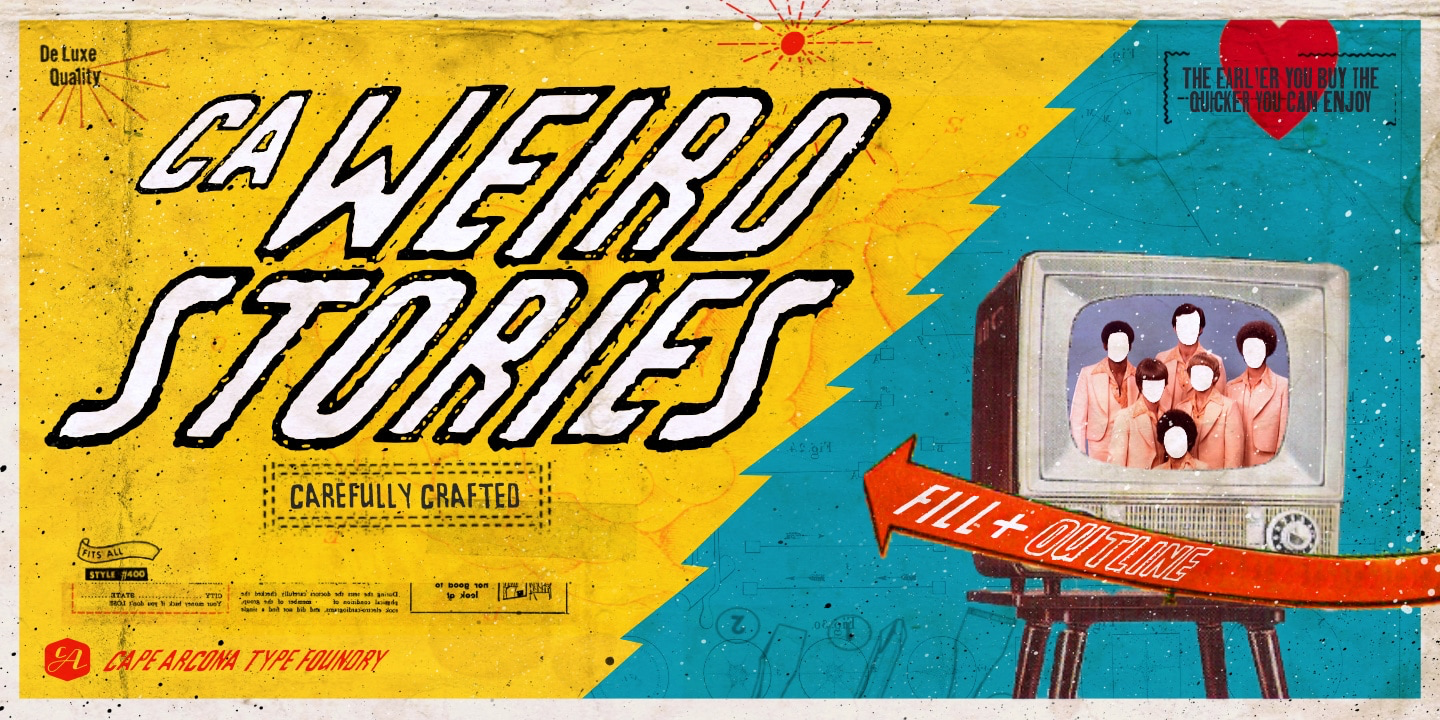
CA Weird Stories Font is perfect for horror novel covers, supernatural thriller designs, paranormal investigation materials, mysterious podcast branding, occult publication layouts, strange phenomena documentaries, eerie entertainment venues, gothic art projects, and any project requiring typography with unsettling narrative atmosphere and mysterious storytelling aesthetics.
What makes CA Weird Stories Font exciting is its narrative mystique that captures the essence of unexplained phenomena and supernatural storytelling with letterforms that seem to whisper tales of the unknown and unexplored mysteries. This haunting typeface embodies the compelling allure of strange narratives with distorted characters that suggest the twisted reality of paranormal encounters and the unsettling beauty of stories that defy conventional explanation. The font's mysterious character and storytelling sophistication make it perfect for projects exploring the boundaries between reality and the supernatural, celebrating the fascination with unexplained mysteries.
The CA Weird Stories Font family includes regular weight with complete uppercase and lowercase alphabets, numerals, punctuation marks, and mysterious narrative elements. The font maintains consistent eerie elegance throughout all letterforms while ensuring adequate readability for both haunting headlines and mysterious text applications in entertainment and supernatural contexts.
Whether you're designing for horror entertainment, creating paranormal investigation materials, or developing mysterious storytelling branding with supernatural aesthetics, CA Weird Stories Font Free Download brings unmatched narrative intrigue and supernatural sophistication to your projects. This exceptional typeface transforms ordinary text into compelling expressions of mystery and wonder that capture the irresistible attraction of strange tales and unexplained phenomena. The font's mysterious character makes it ideal for horror publishers, paranormal investigators, and supernatural entertainment venues. Download this remarkable font today and bring the compelling mystique of weird storytelling to your design projects with authentic supernatural elegance and narrative mystery.